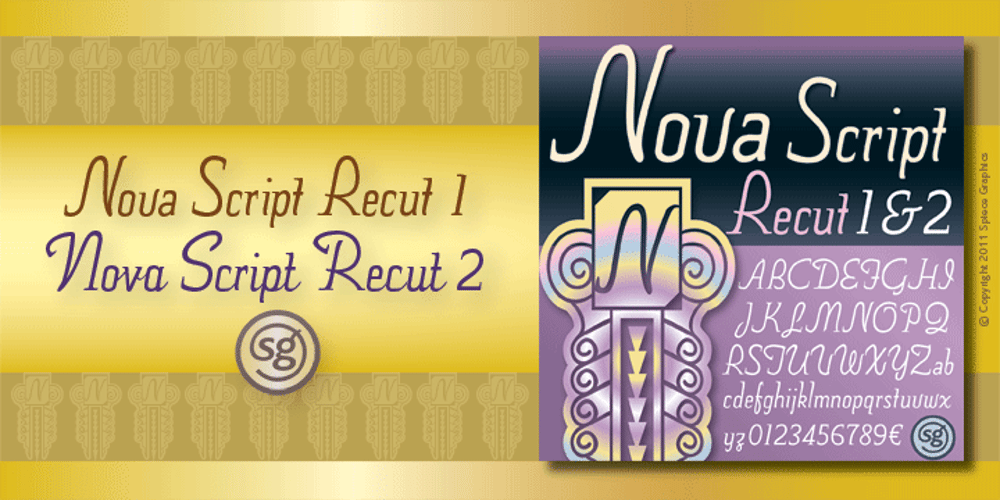
Nova Script Recut One & Two SG Font Family was designed by Jim Spiece, George F. Trenholm and published by Spiece Graphics. Nova Script Recut One & Two SG contains 2 styles and family package options. Nova Script Recut One & Two Your next stationery or menu project can benefit greatly from the use of this enchanting and legible script. Nova Script Recut One is derived from George F. Trenholm’s classic 1937 design. Its narrow, slightly sloping lowercase letters and quirky capitals make for unique and personal headline settings – even in small sizes. Nova Script Recut Two is an exciting departure from the original 1937 script. Lowercase letters are now connected; capitals, in many cases, are redrawn. Try mixing characters from both One and Two for new and interesting results. Nova Script Recut One & Two are also available in the OpenType Std format. Some new stylistic alternates and discretionary ligatures have been added to these OpenType versions. Advanced features currently work in Adobe Creative Suite InDesign, Creative Suite Illustrator, and Quark XPress 8. Check for OpenType advanced feature support in other applications as it gradually becomes available with upgrades.